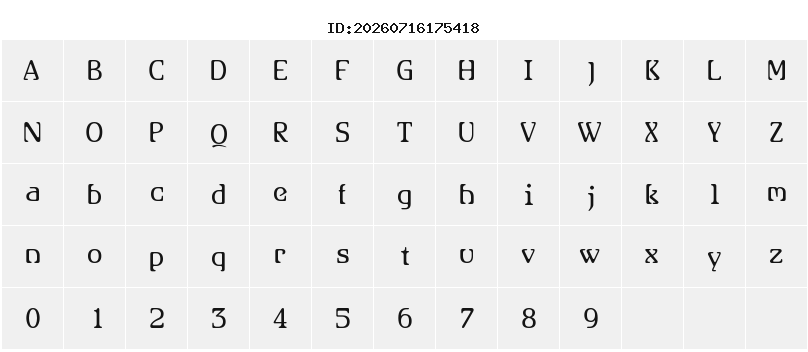
• Font Name: All Hooked Up
• Designer: Darren Rigby
• Manufacturer: Objets Dart
• Description: A font I designed while solving cryptics by Henry Hook, hence the name.
All Hooked Up.ttf is a modern, elegant sans-serif font designed for ultimate readability and visual harmony. Perfect for branding, headlines, web design, and print materials.